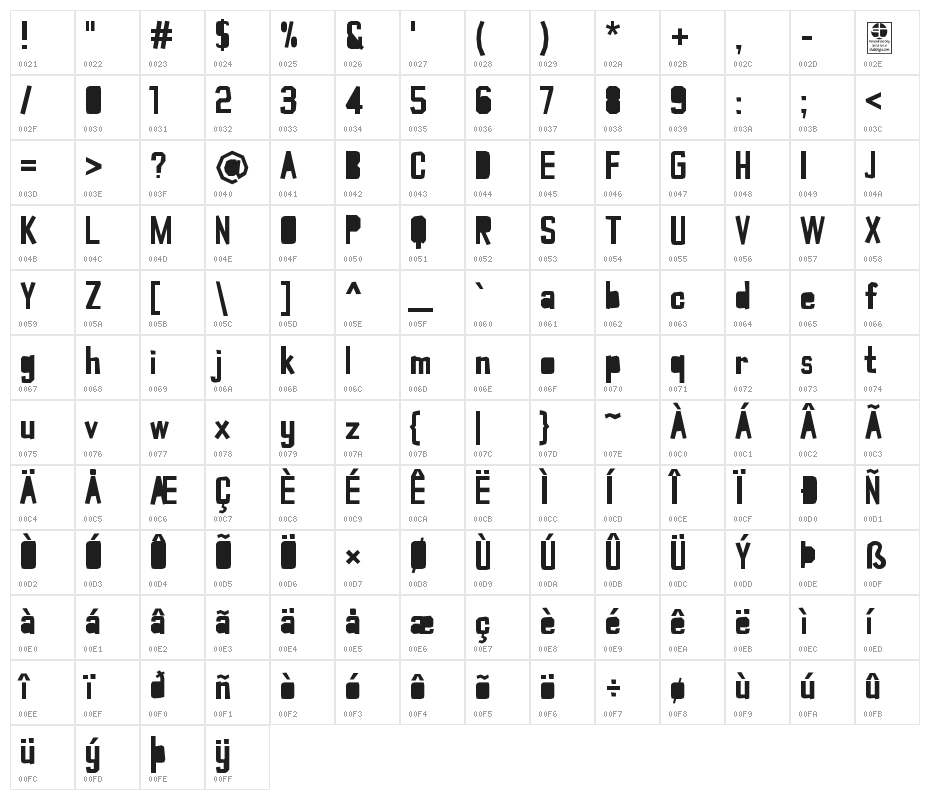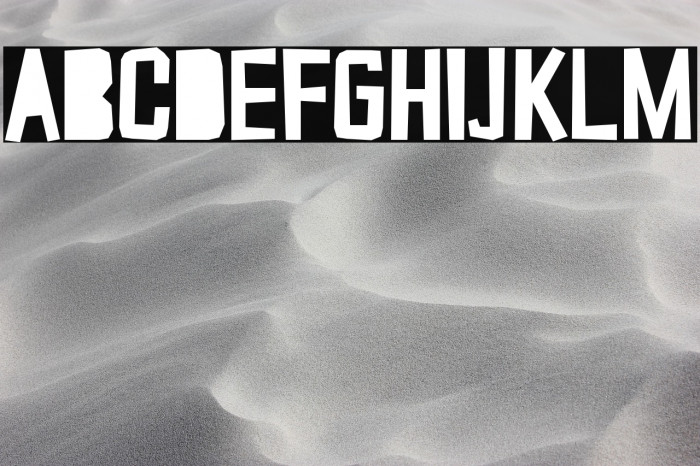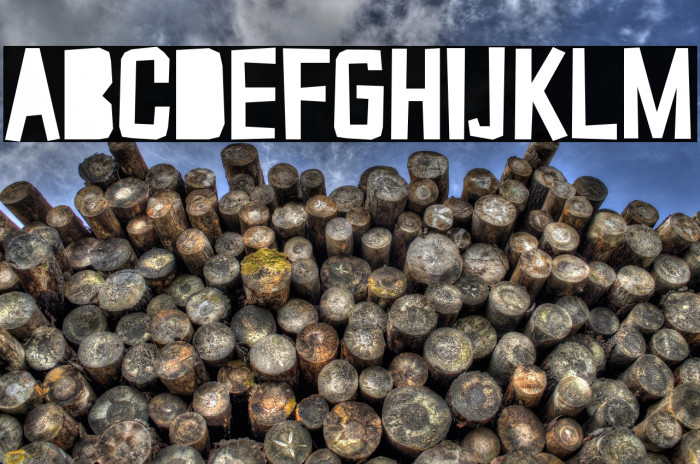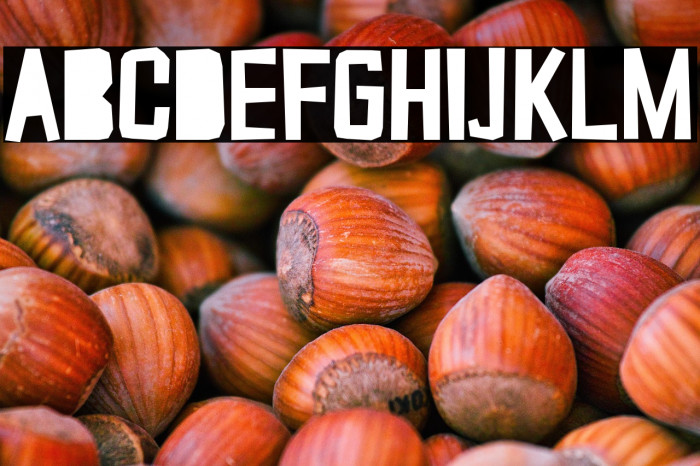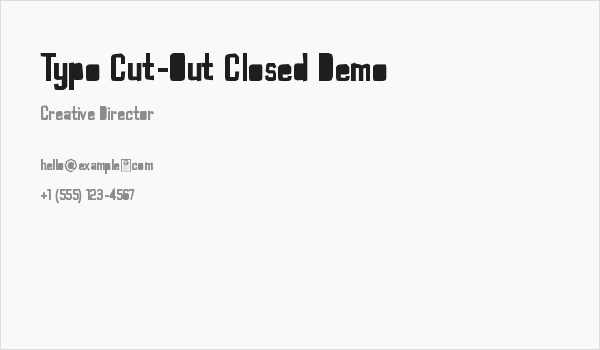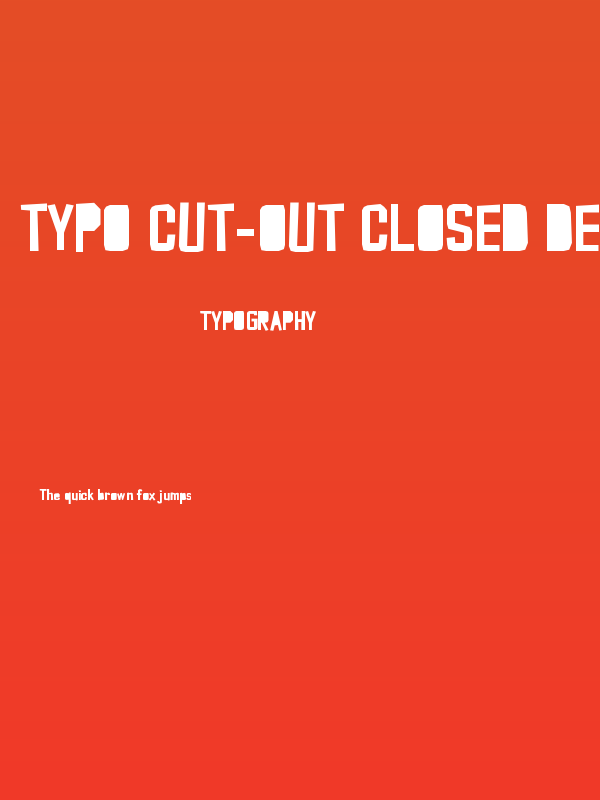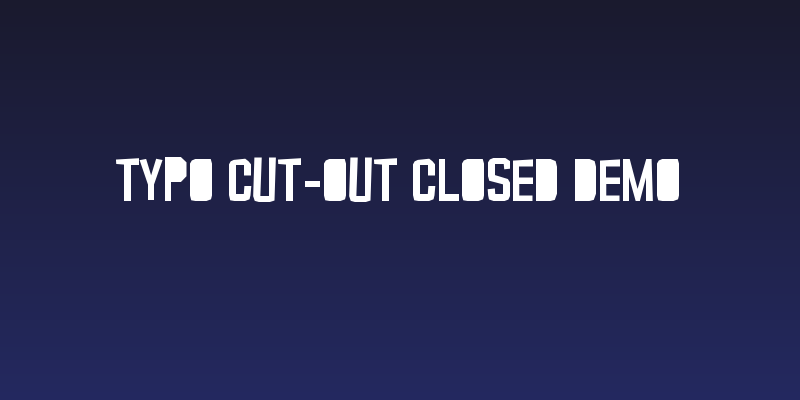
Typo Cut-Out Closed Demo Font
Typo Cut-Out Closed Demo Description
This font exhibits a bold and edgy style, characterized by its cut-out appearance that gives it a rugged, handcrafted feel. The letters are irregularly shaped, with uneven edges that create a dynamic and visually striking effect. The uppercase and lowercase letters maintain a consistent style, with a playful yet assertive presence. The numbers and special characters follow the same design principles, ensuring a cohesive look across all elements. This font's unique aesthetic makes it stand out, offering a distinctive option for creative projects.
| Proposed Projects | Ideal for posters, album covers, branding projects, and any design requiring a bold, artistic touch. |